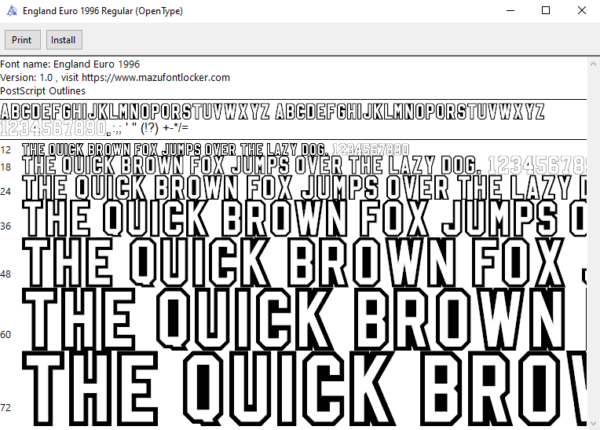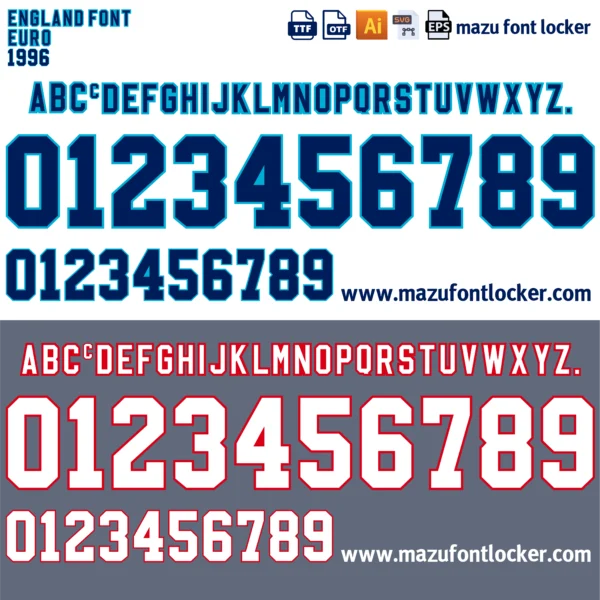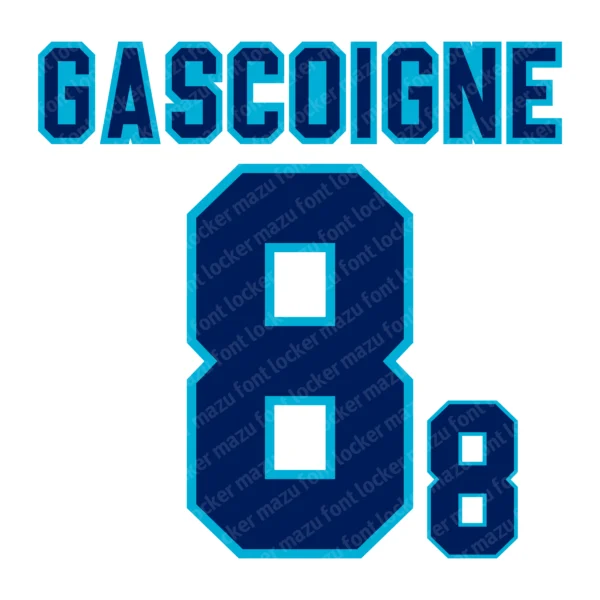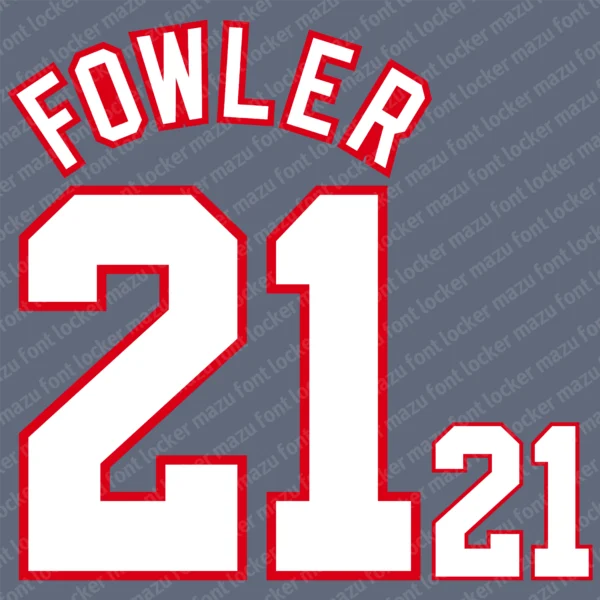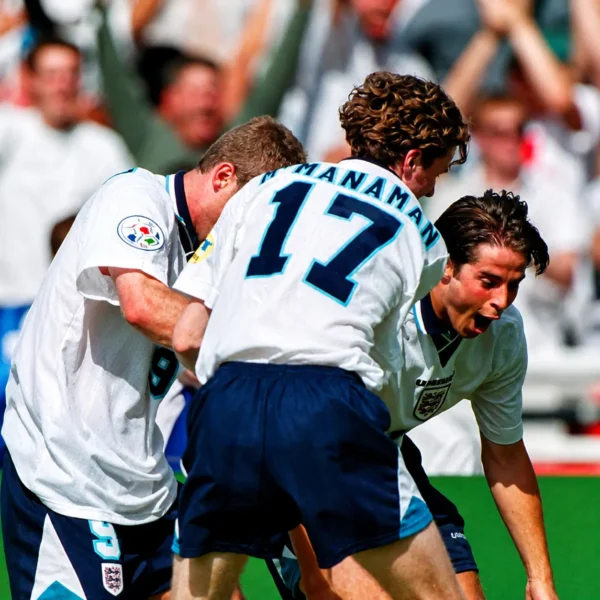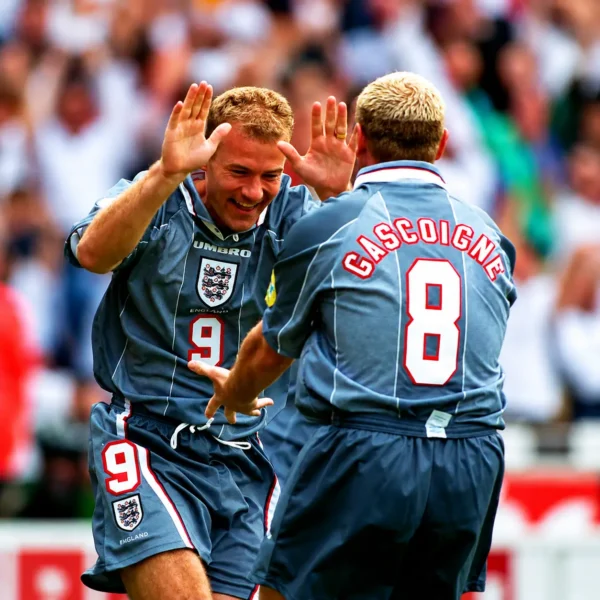
England Euro 1996 Font Vector – Legendary Three Lions Masterpiece
Download the England Euro 1996 Font Vector (AI, EPS, SVG, PDF, OTF, TTF) and unleash the bold, iconic, and passionate match typography that roared across the pitch during England’s unforgettable Euro 1996 campaign. This font channels the classic, commanding lettering that embodies the legendary Three Lions spirit, delivering unmatched authenticity, raw emotion, and Wembley-level intensity for premium jersey mockups and football designs.
England Euro 1996 Font Vector – Authentic Three Lions Typeface
The England Euro 1996 Font Vector is a premium typeface that accurately recreates the official match lettering worn by the England national team during the historic UEFA Euro 1996. This high-quality vector font kit captures the bold, clean, and iconic typography that represents one of the most memorable tournaments in English football history.
Designed for professional designers and passionate England fans, the England Euro 1996 Font Vector delivers perfect authenticity for creating realistic jersey mockups, fan merchandise, matchday posters, social media graphics, and much more. It blends beautifully with the classic white home kit featuring the famous Three Lions crest from that golden summer.
Why Choose England Euro 1996 Font Vector
This font stands out because of its sharp vector details and strong national identity. Every letter and number is crafted to match the exact style used on the players’ shirts during Euro 1996. Whether you are making realistic kit templates or nostalgic football content, the England Euro 1996 Font Vector gives your designs that authentic Three Lions look.
The letterforms in the England Euro 1996 Font Vector are tall, bold, and highly readable. The strokes have a strong, clean weight with excellent edge definition that looks powerful on the back of jerseys while maintaining classic elegance and clarity.
• Full uppercase A–Z and numbers 0–9 in authentic England Euro 1996 style
• Special England Three Lions crest glyph for accurate shirt number detailing
• Create highly realistic England Euro 1996 home and away jersey mockups with accurate lettering
• Design stunning tournament posters, score graphics, and squad announcements
• Produce custom Three Lions merchandise with a classic 90s football aesthetic
England at Euro 1996
The England national team, famously known as the Three Lions, hosted and delivered one of their most memorable campaigns at UEFA Euro 1996. Featuring stars such as Alan Shearer, Paul Gascoigne, David Seaman, and captain Tony Adams, England reached the semi-finals in a tournament remembered for “Football’s Coming Home”.
The England Euro 1996 Font Vector is an independently designed typeface package. It is carefully crafted to replicate the official shirt lettering style of the Euro 1996 tournament. This font kit is perfect for creative projects, fan edits, nostalgic jersey designs, and custom football graphics.